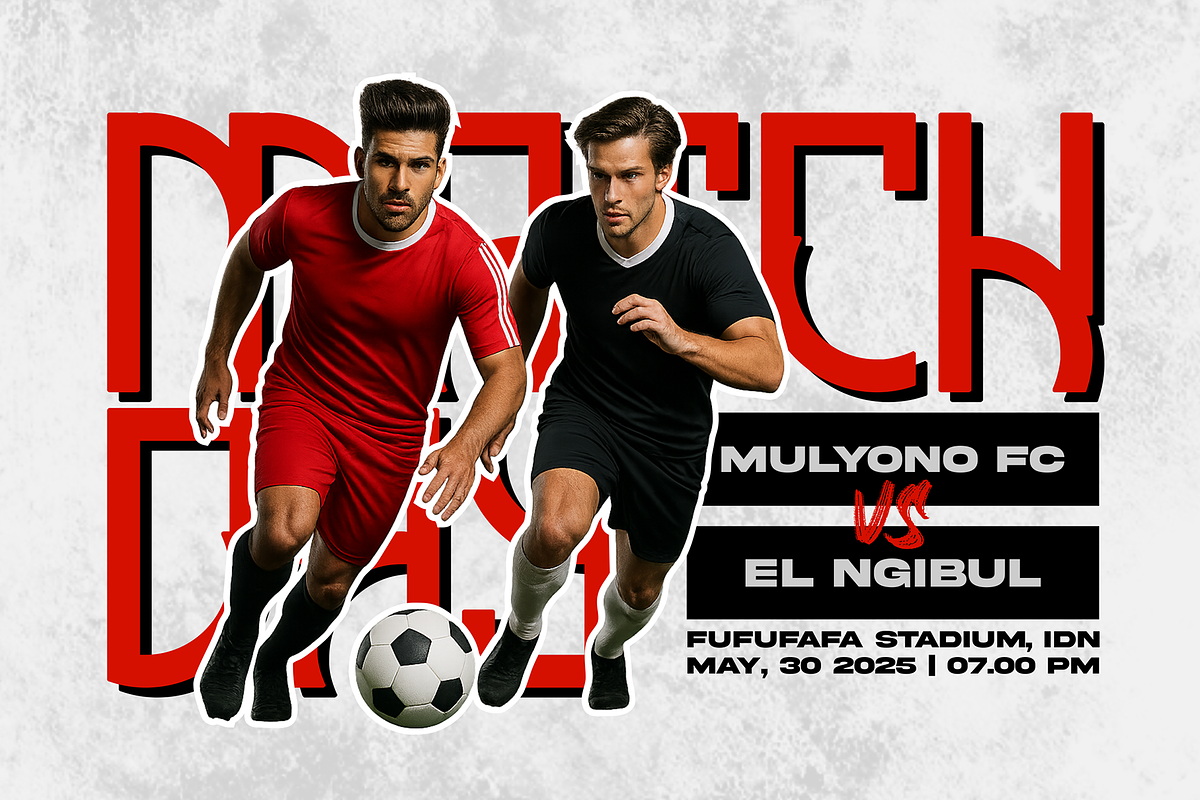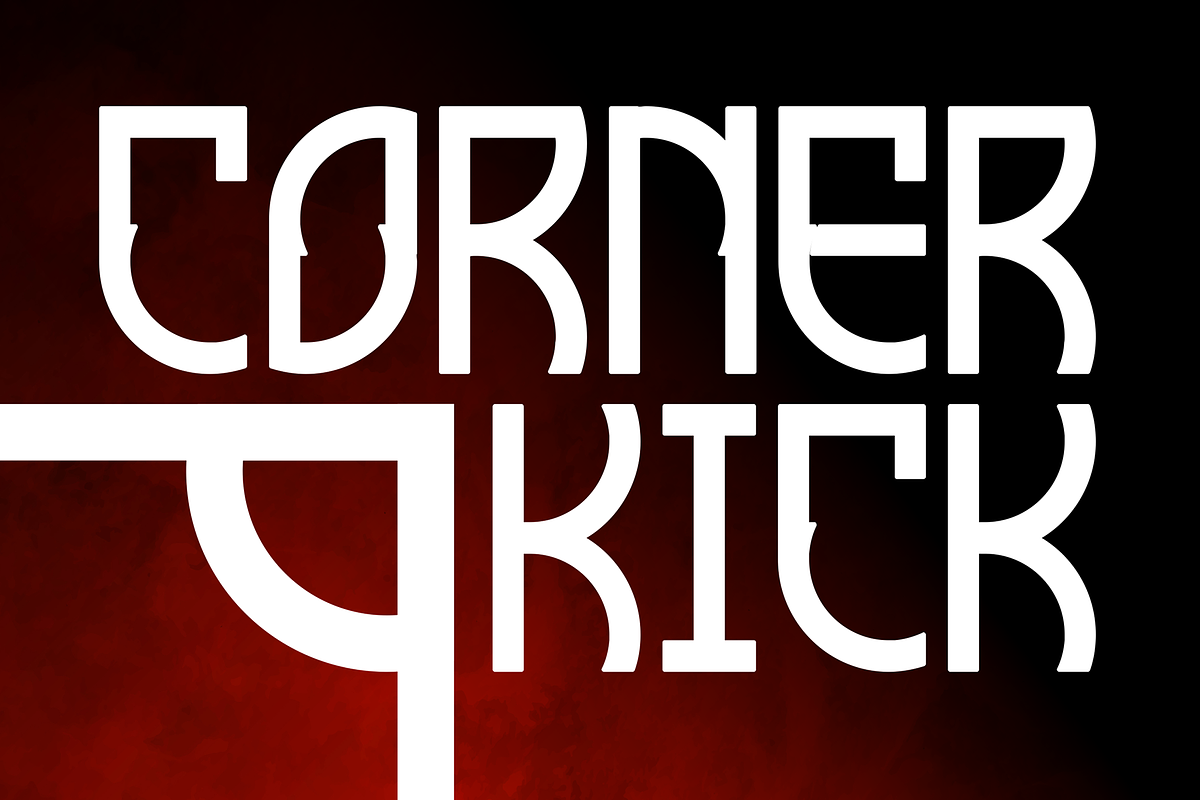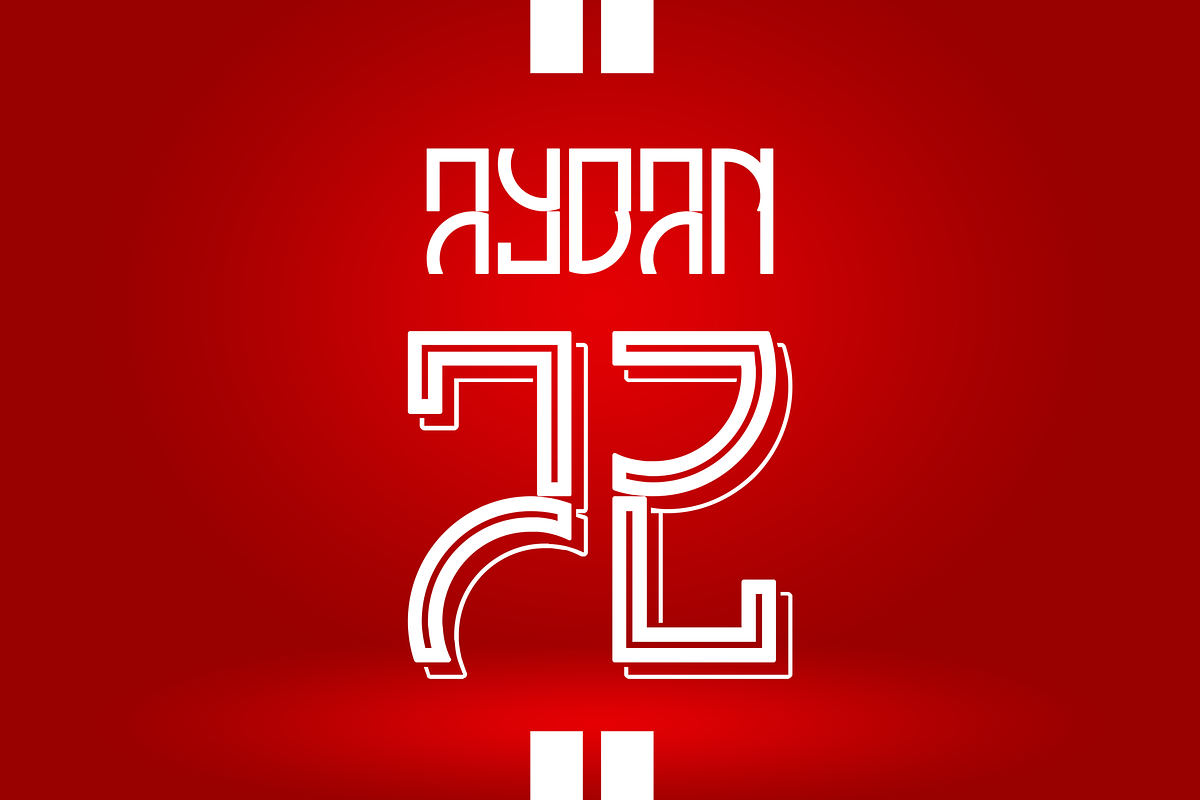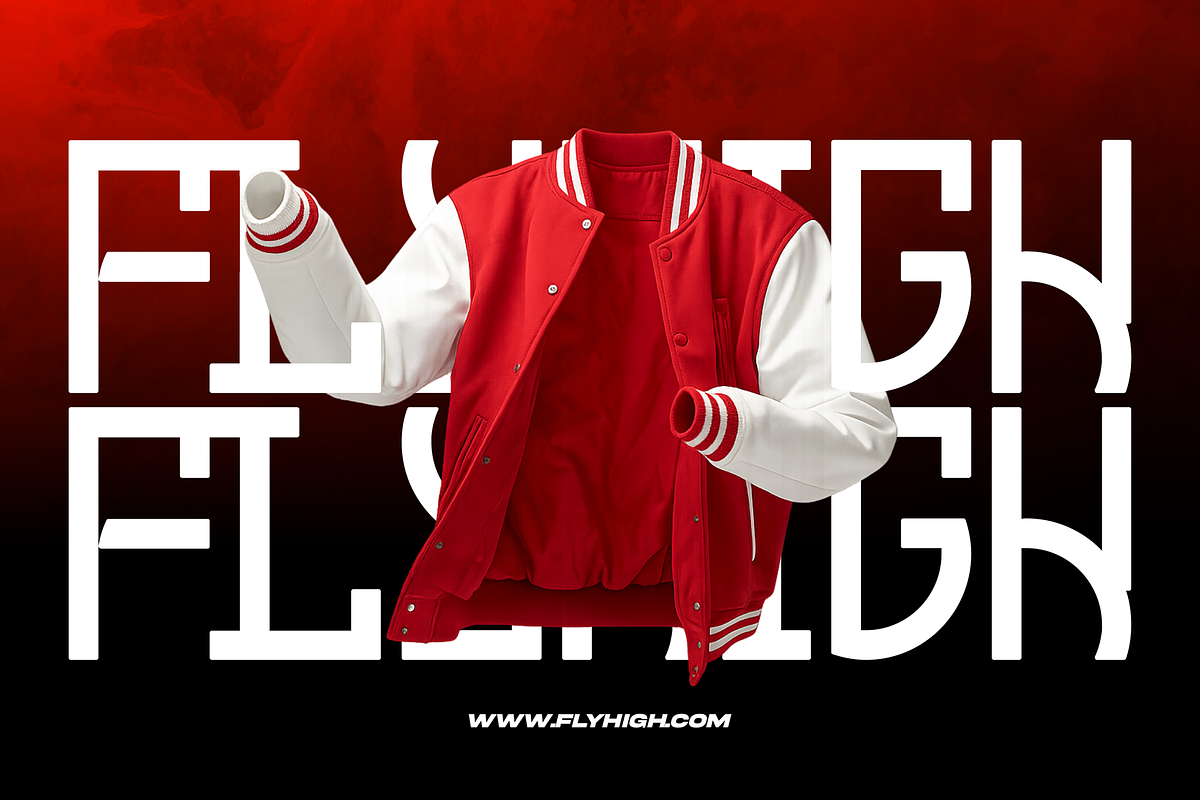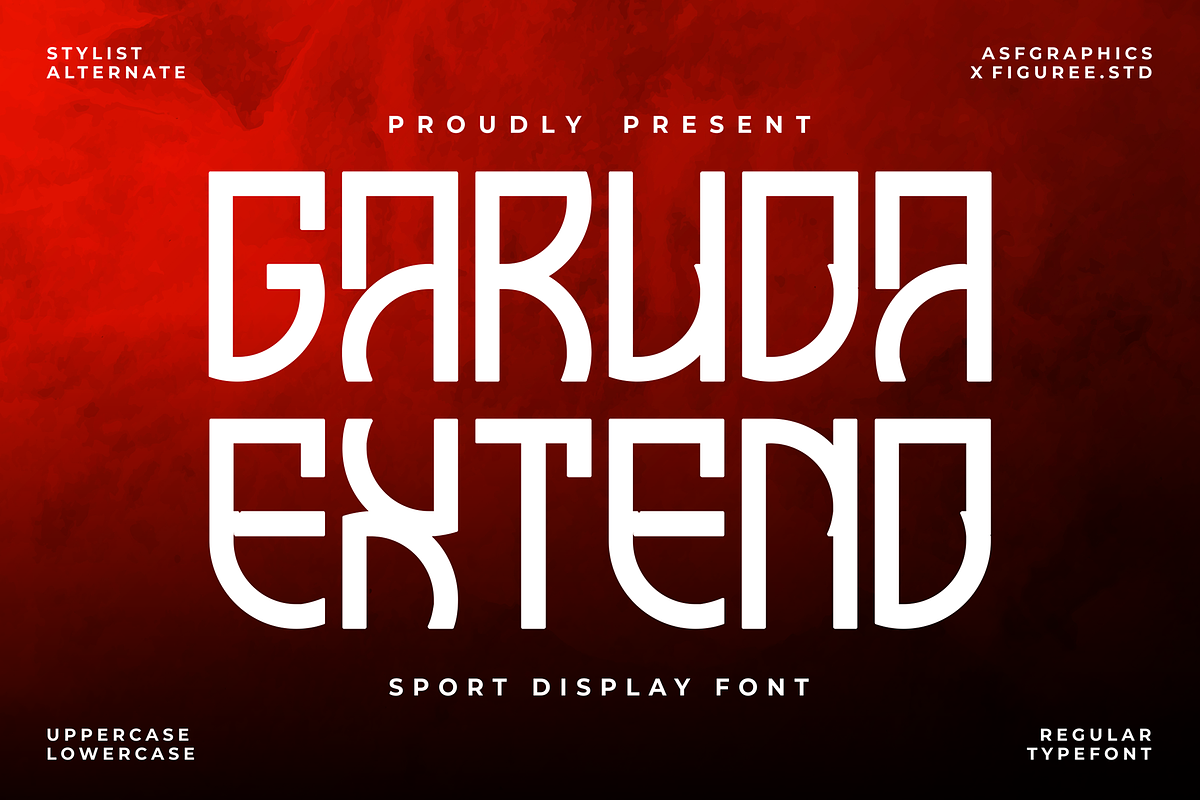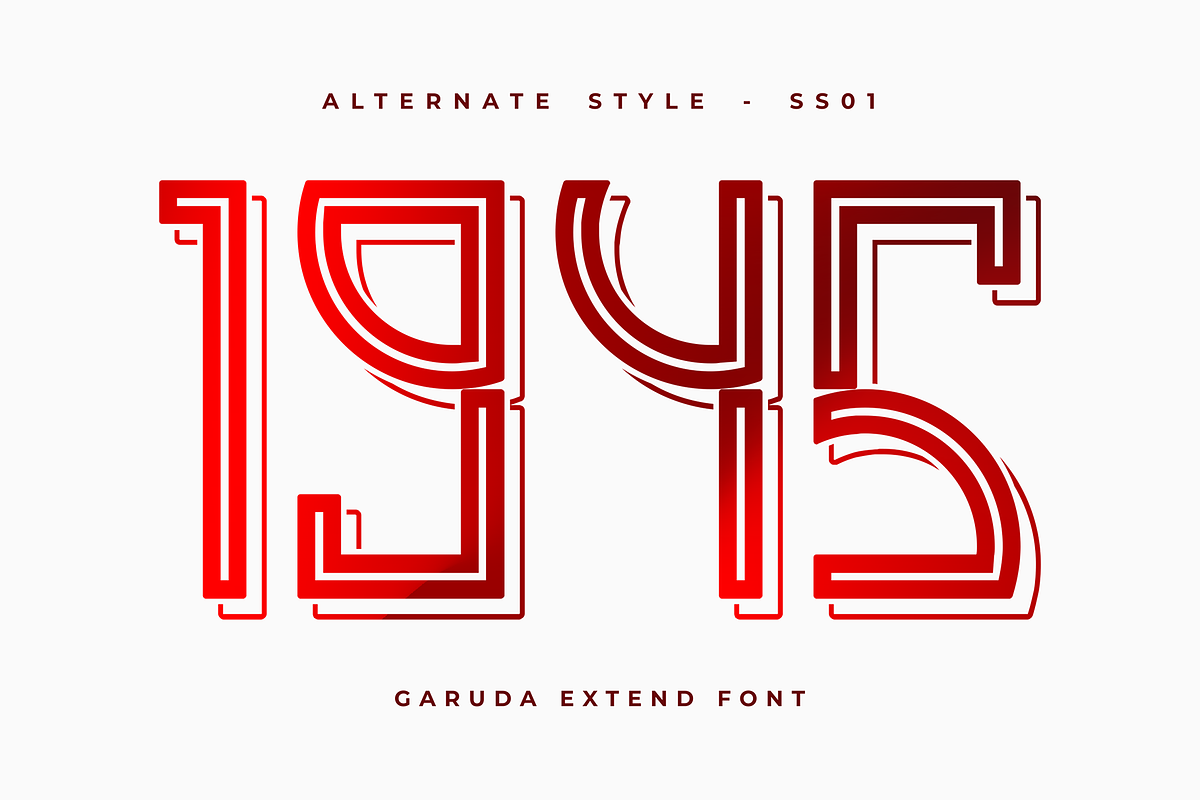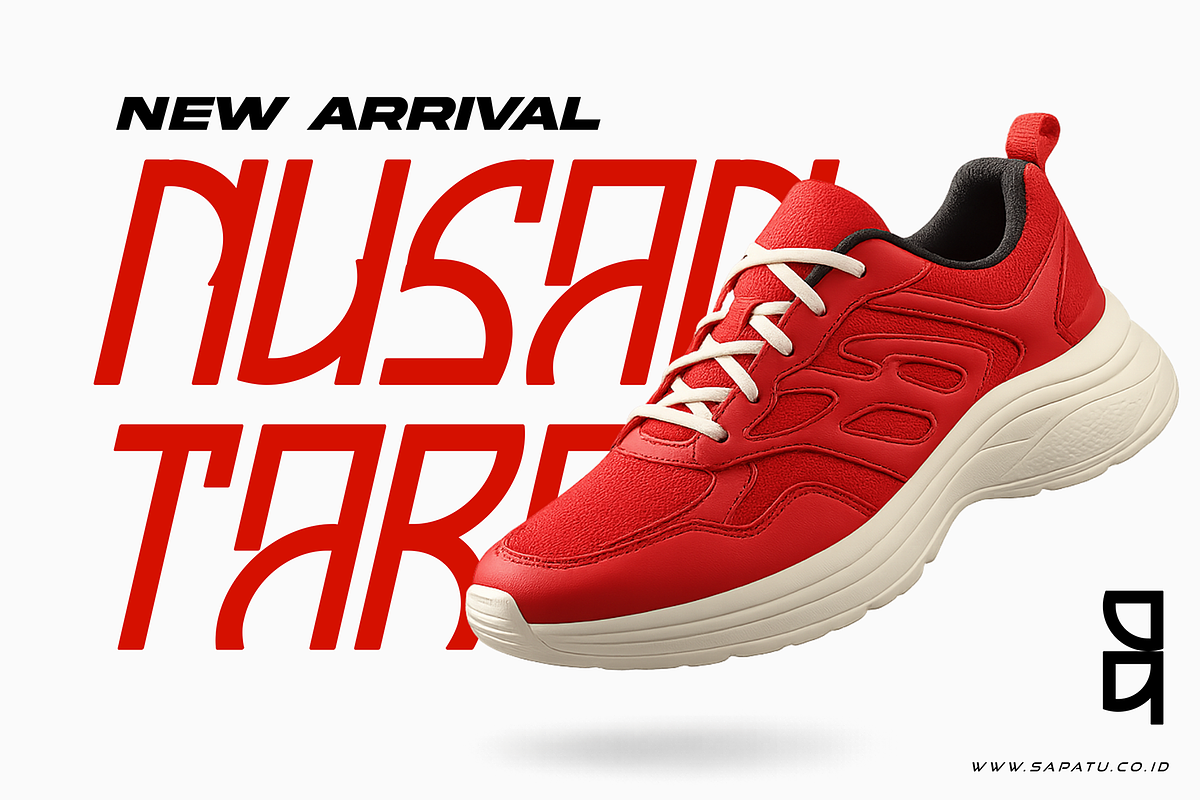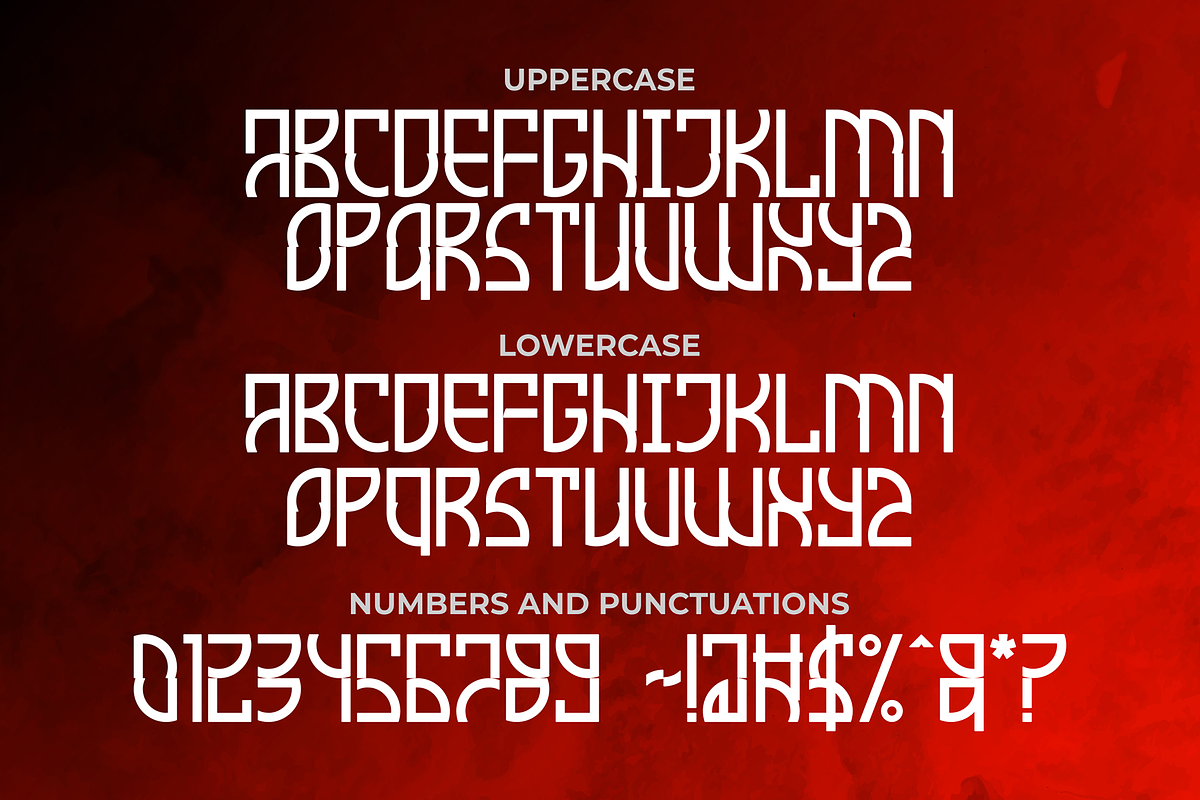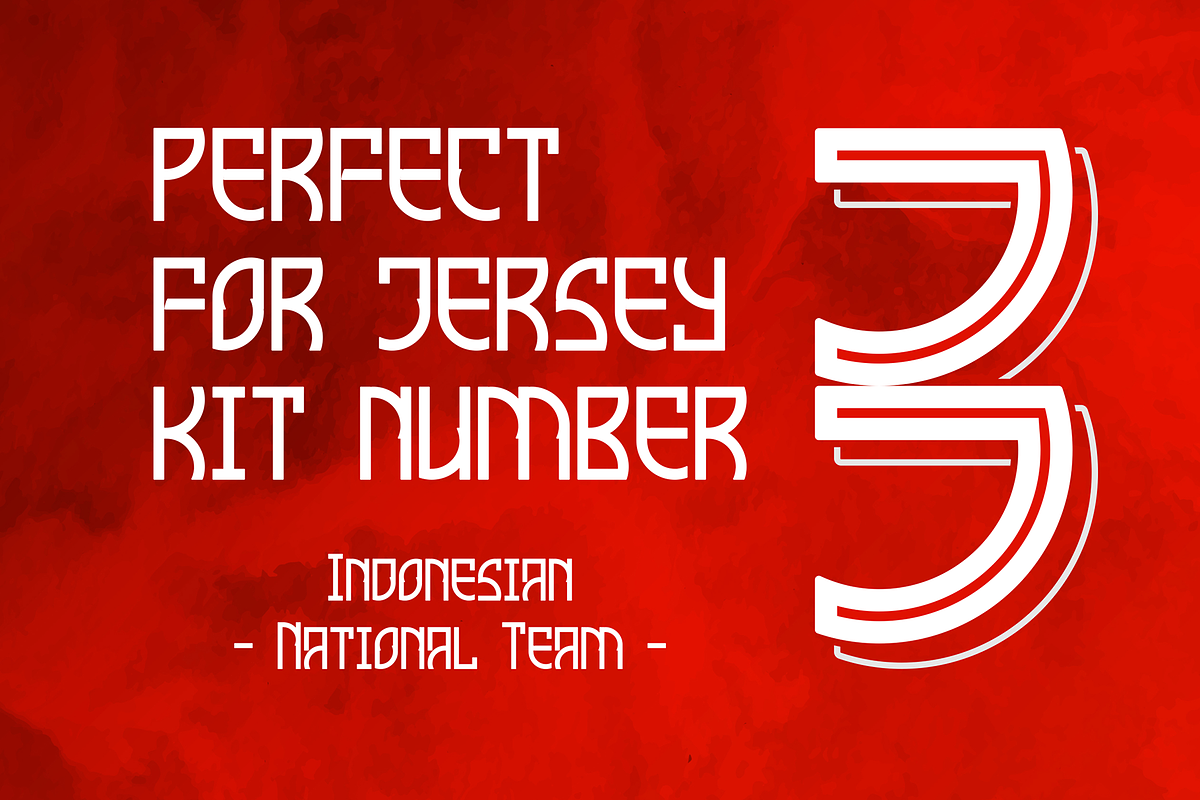
Garuda Extend – Sport Display Font
Garuda Extend is a dynamic sports display font built to deliver maximum impact and speed. With its wide stance, powerful letterforms, and extended proportions, this font channels energy and motion—perfect for sports branding, athlete posters, game-day graphics, and bold editorial headlines.
⚡ Features:
- Uppercase & Lowercase – Flexible for both headlines and subtext
- Alternate Numbers – Stylized digits for extra flair and customization
- Bold & Extended Style – Designed to dominate layouts with strength and clarity
- Multilingual Support – Covers major Latin-based languages
- Complete Set – Includes punctuation, numbers, and symbols
🏆 Why You’ll Love It:
- Sport-Driven Design – Perfect for gym gear, racing, team logos, and activewear
- High Readability – Clean shapes ensure legibility in fast-paced settings
- Customizable Looks – Alternate numerals offer added design versatility
- Professional Results – Balanced spacing and smooth curves for polished output
Garuda Extend brings a bold, adrenaline-fueled presence to your design projects—where speed, precision, and power are non-negotiable.